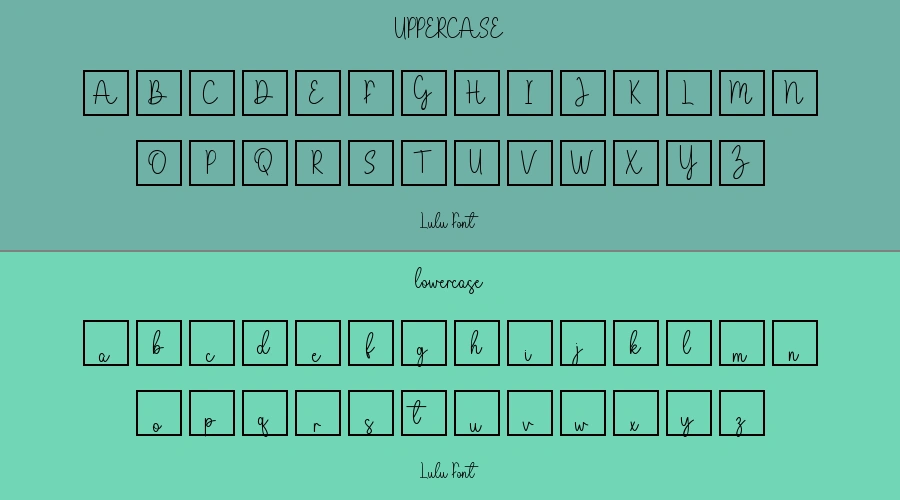
About Lulu Font
Lulu Font stands out for its distinctive combination of architectural precision and refinement. Ideal for print publications, it provides the distinctiveness and market confidence that professional projects demand. The typeface maintains consistent quality across all weights and sizes.
Key features include refined pressure variations and practical dingbat elements, enhancing typographic expression. In book chapters applications, Lulu Font demonstrates exceptional small cap rendering. The corner treatment and professional recognition contribute to its distinctive character and professional appeal.